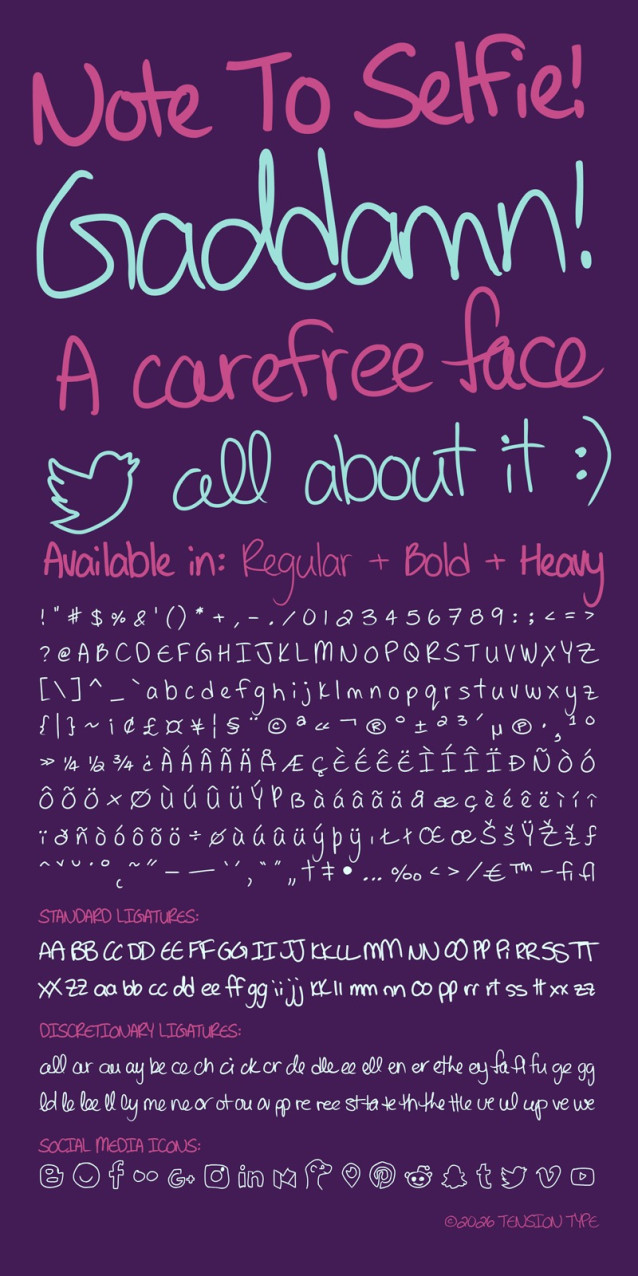
Note To Selfie Font is a simple and friendly handwritten font. Its natural and unique style makes it incredibly fitting to a large pool of designs. The only limit is your imagination!